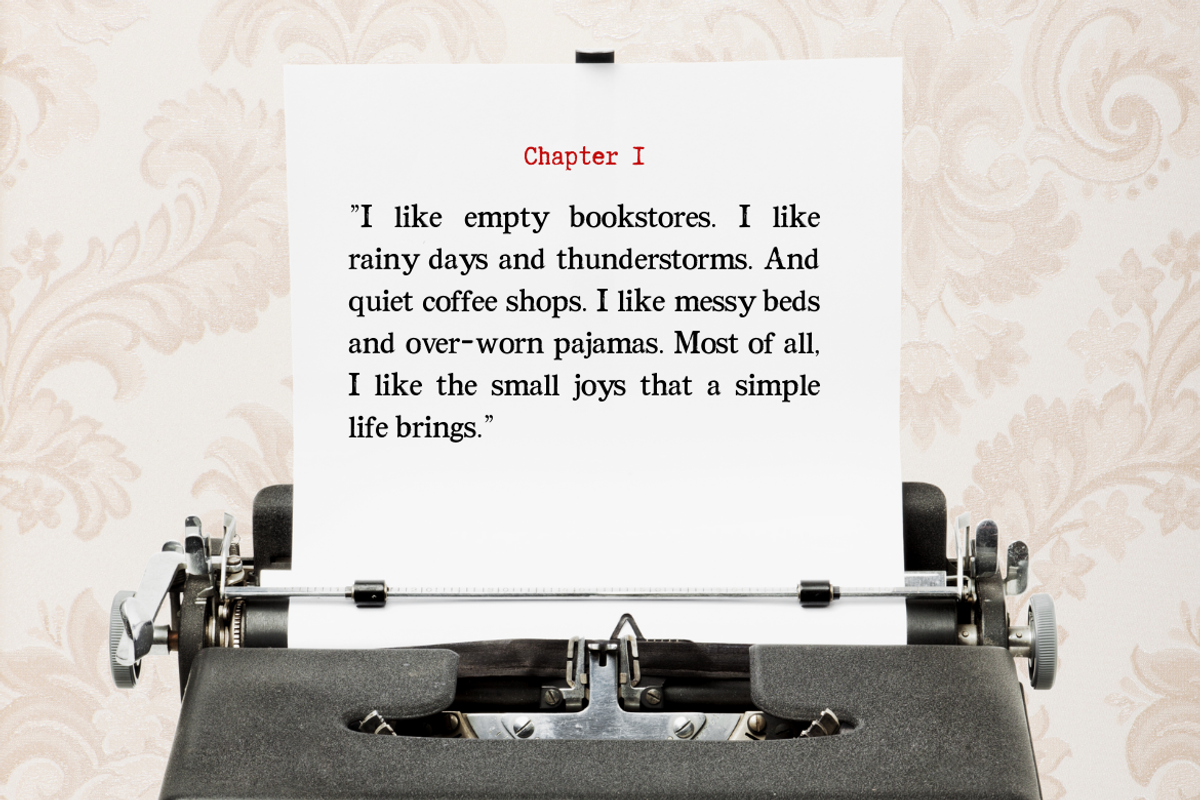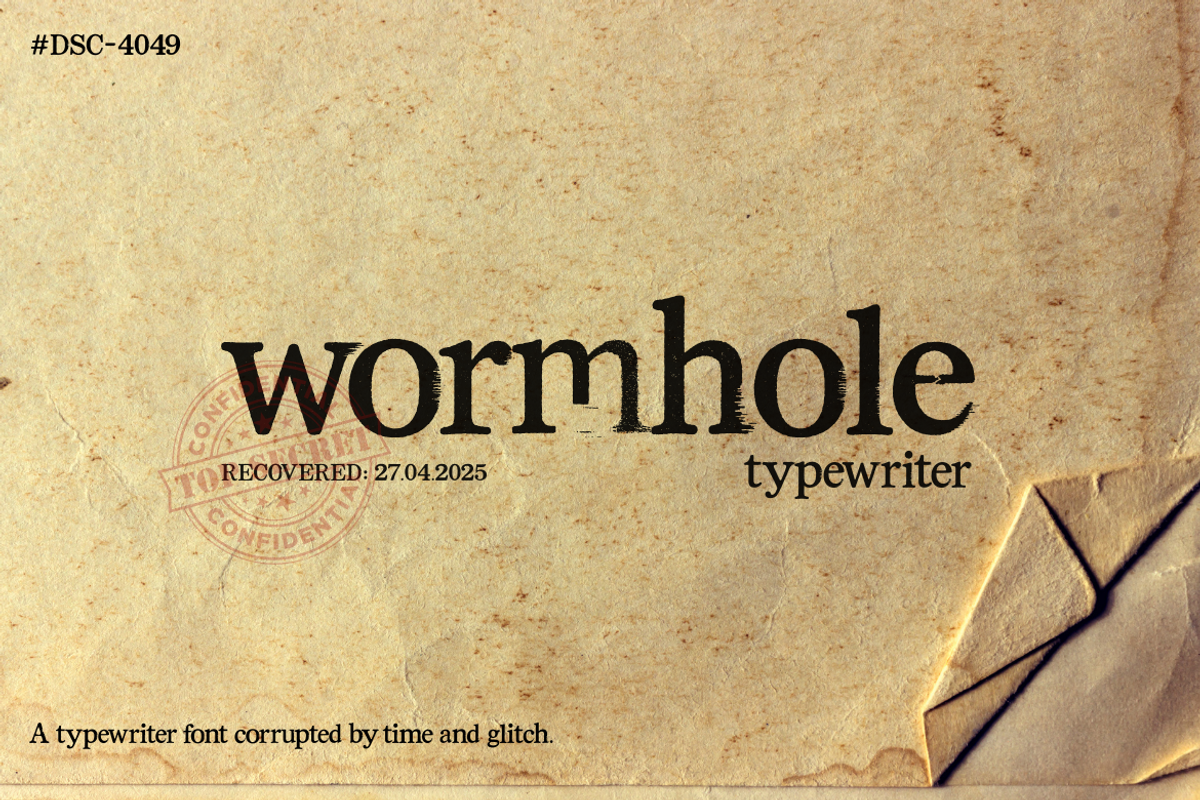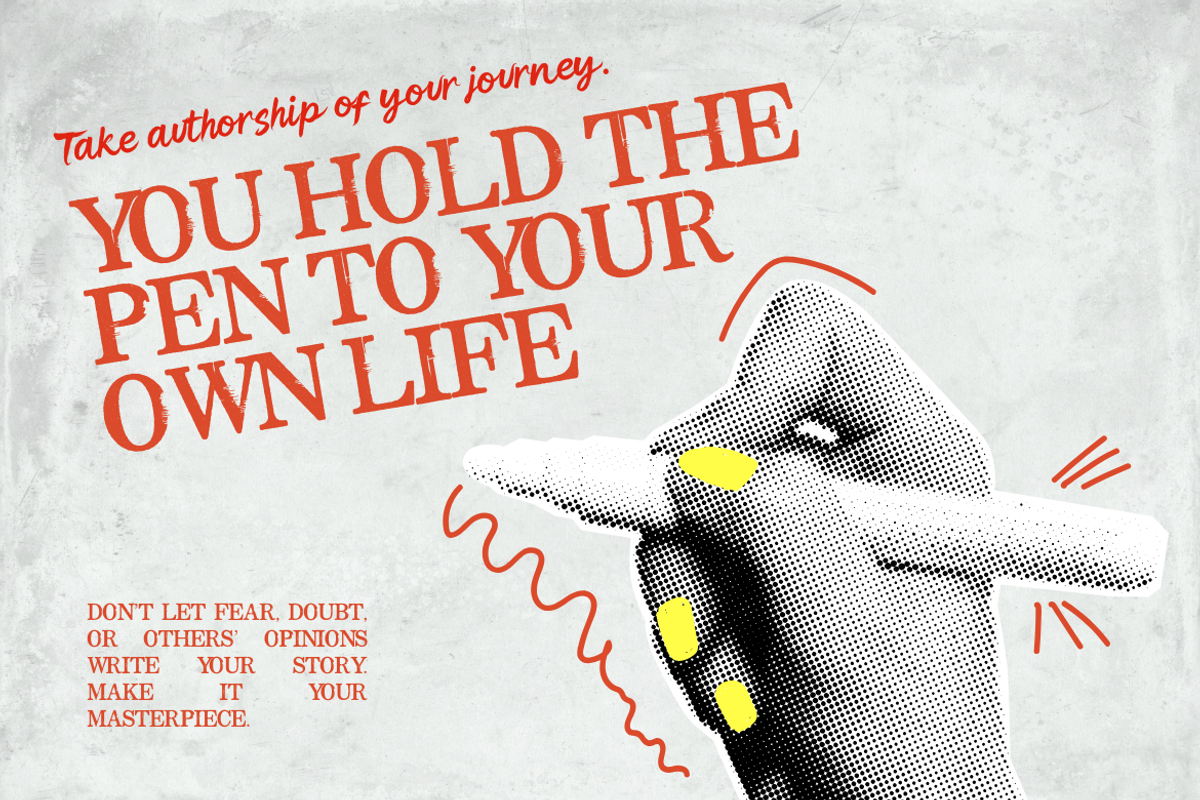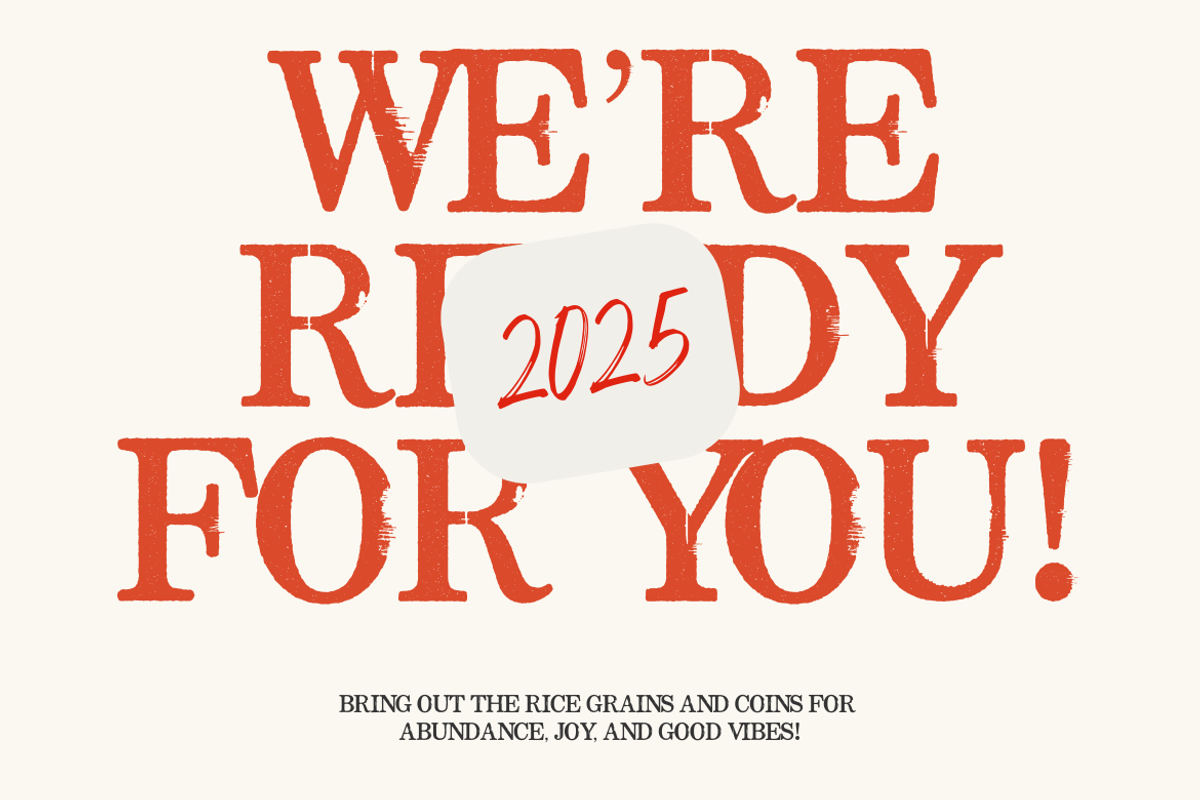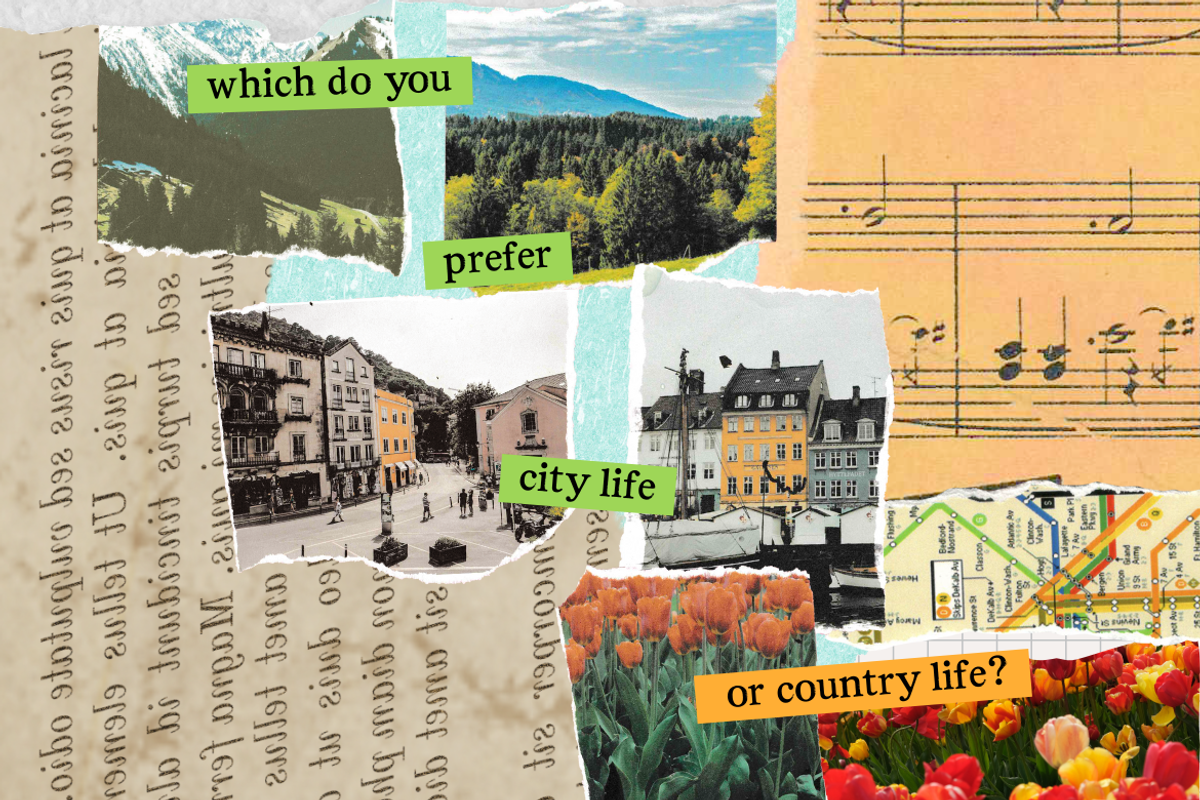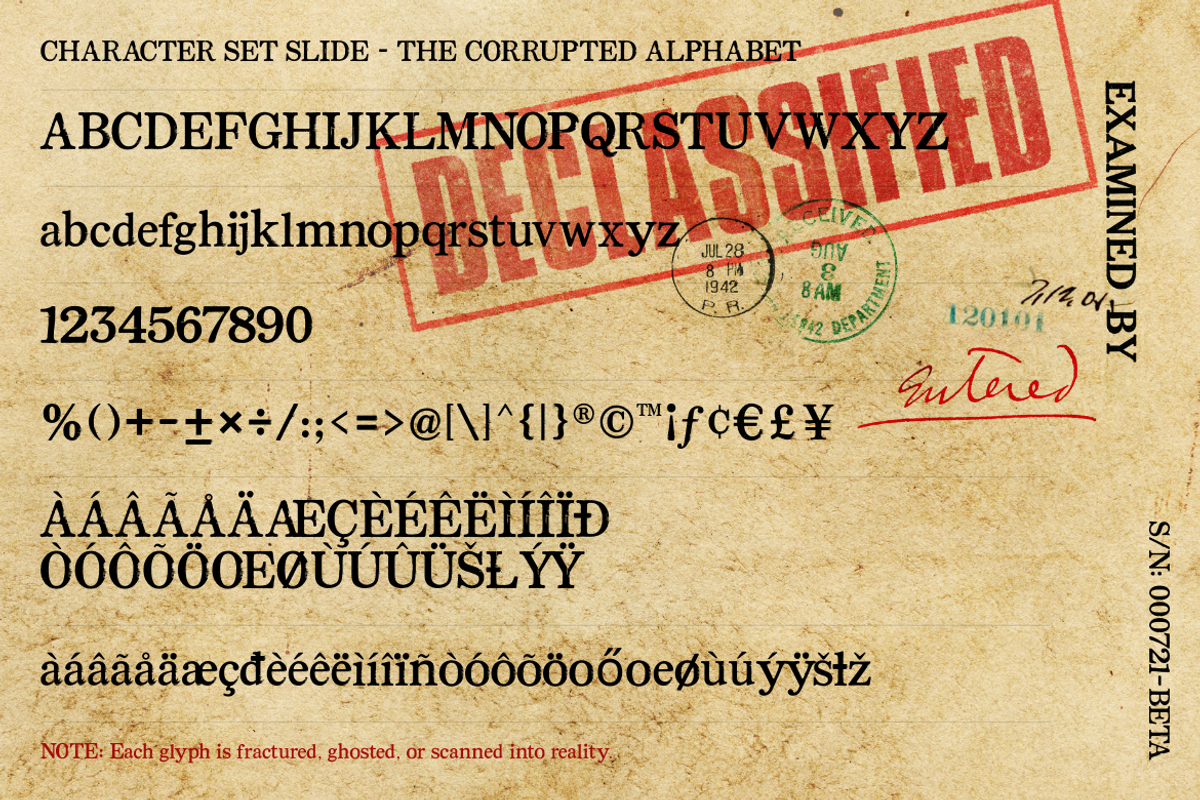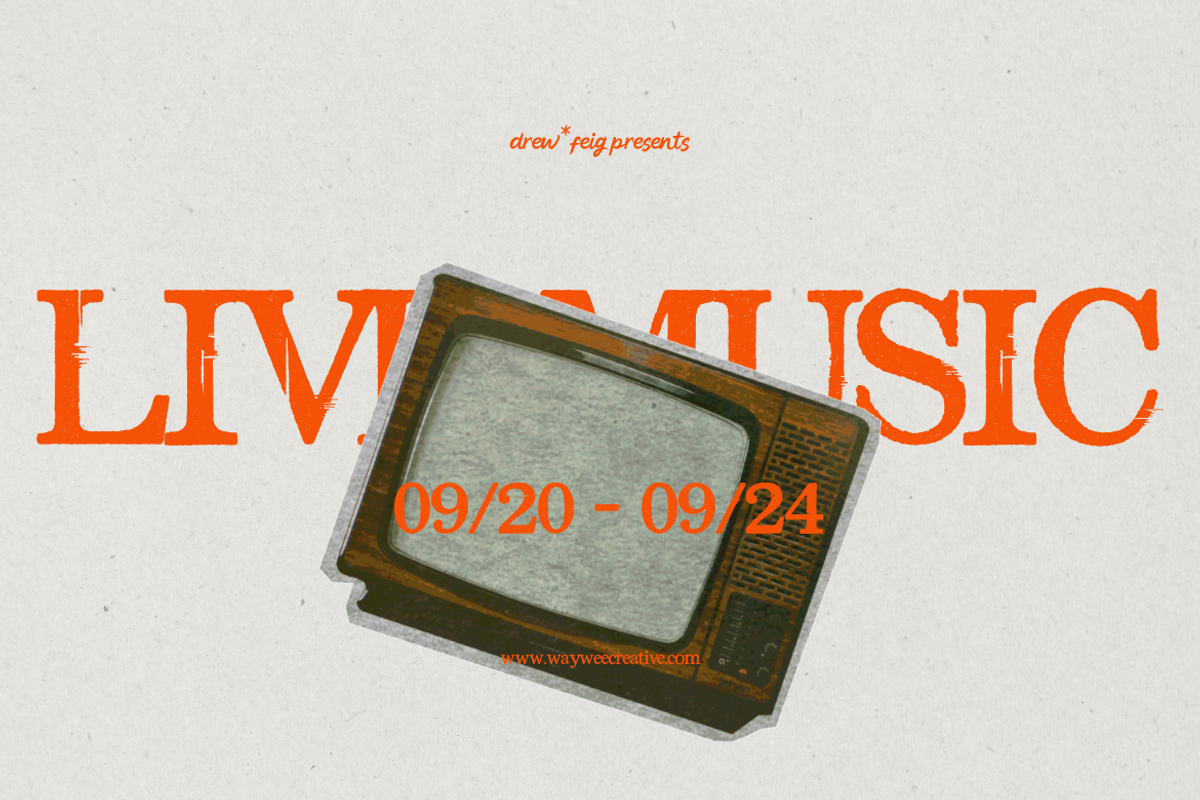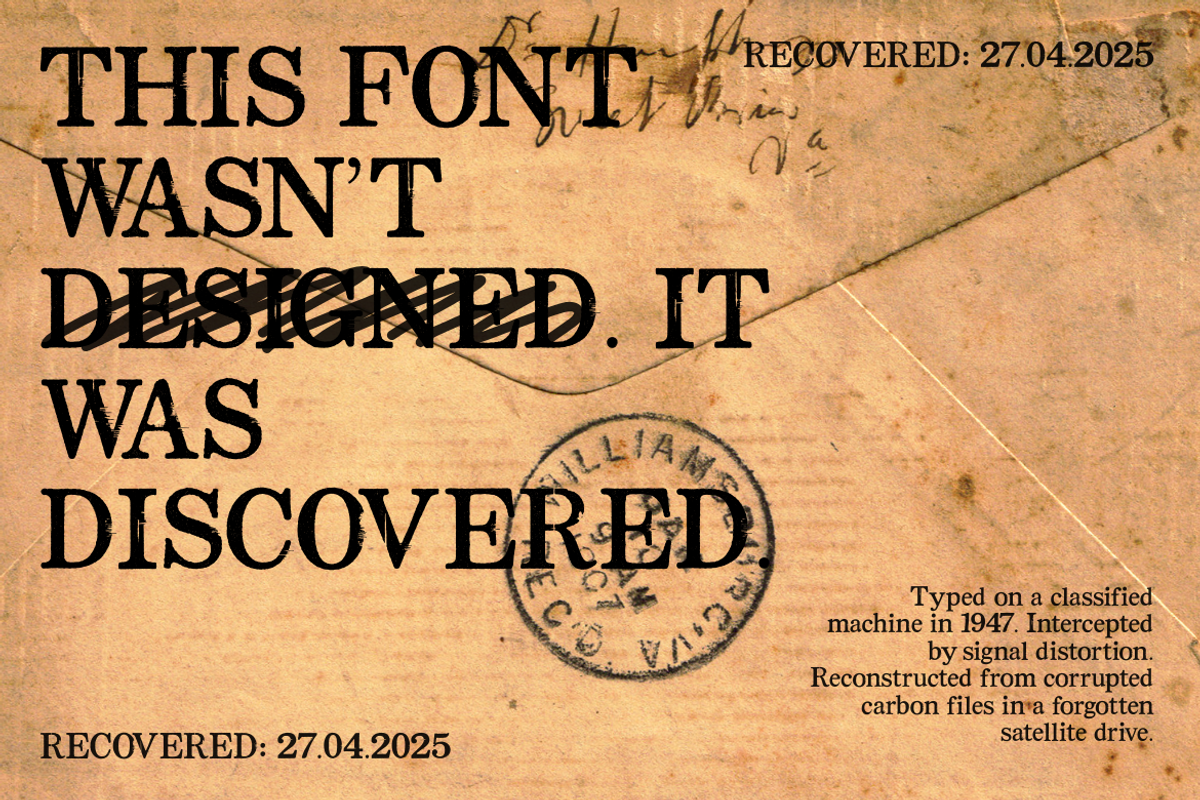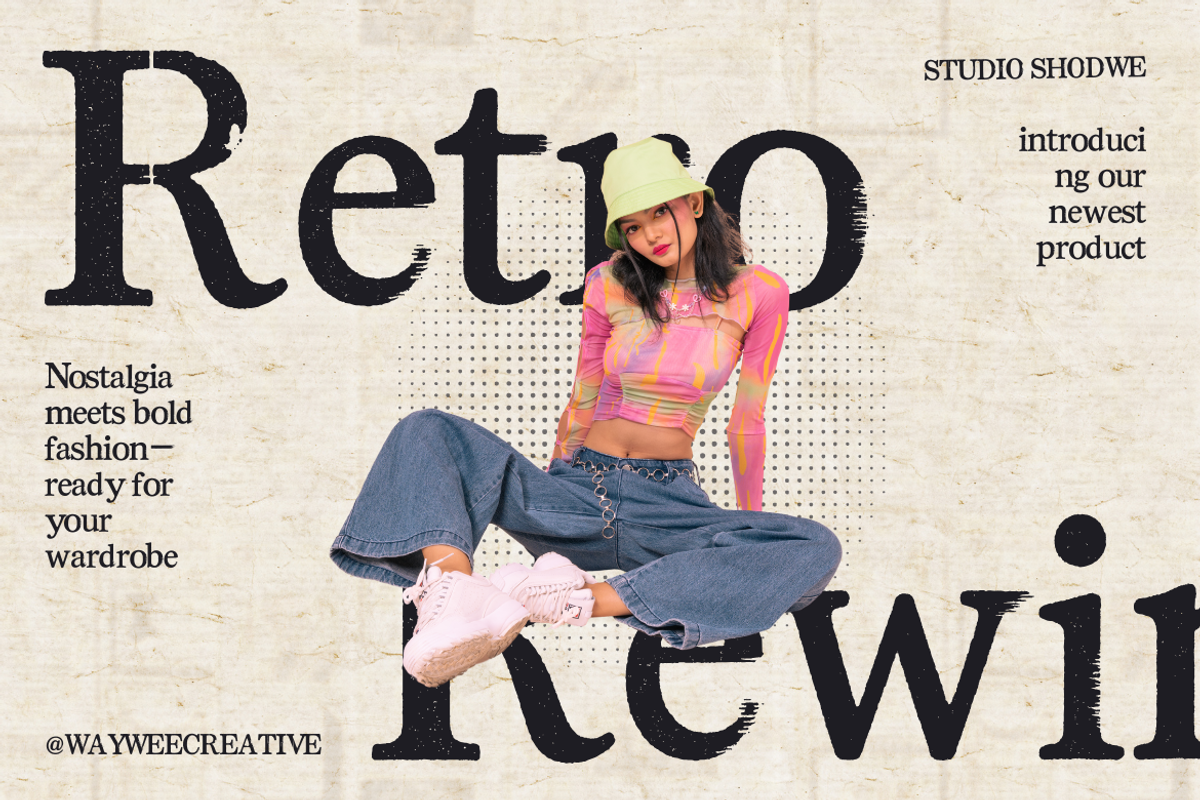
Wormhole Type – Glitch Font
WORMHOLE TYPE isn’t just a font—it’s an encrypted artifact.
Rescued from the fragments of a forgotten machine, this typewriter-inspired display font fuses the tactile imperfection of 1940s analog print with the haunting glitches of a corrupted digital future. Every glyph feels like it’s been torn through space-time—frayed at the edges, half-erased, and struggling to hold its form.
Created for designers who dare to explore the edges of legibility and narrative, WORMHOLE TYPE speaks in distortion. From post-apocalyptic book covers to indie game UI, brutalist zines to classified posters, it adds tension, mystery, and glitchy elegance to any layout.
🔍 What’s inside:
Uppercase & Lowercase A–Z with distressed detailing
Alternates & Stylistic Sets: warped forms, corrupted counter shapes, analog noise
Ligatures: fi, tt, oo, th, and alternates a, e, g, m, n, and s.
Punctuation & Symbols with pixel smears and fractured inking
Multilingual support (Latin Extended)
Decode the past. Distort the future. Let your words glitch into memory with WORMHOLE TYPE.